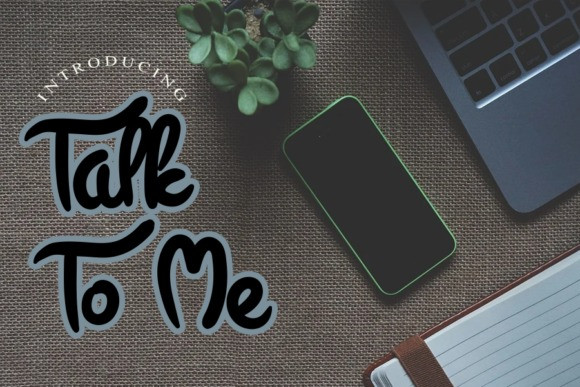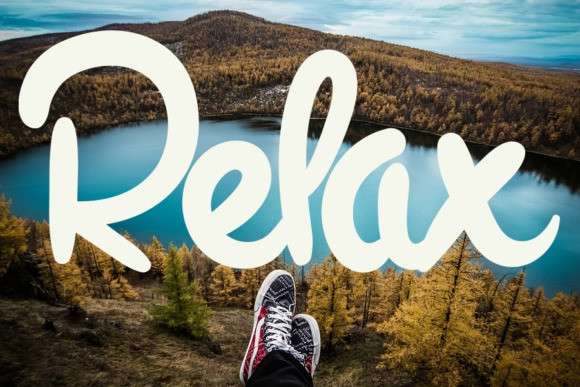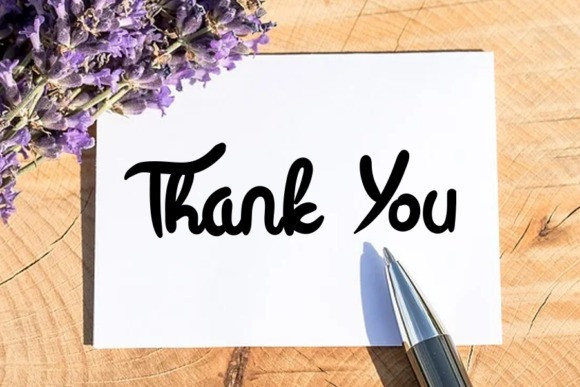
La Maison Brush Typeface
La Maison Brush Font
Introducing by Allouse.Studio
Proudly Present, La Maison Brush
La Maison Brush is a Elegant Brush Font.
La Maison Brush is perfect for product packaging, branding project, megazine, social media, wedding, or just used to express words above the background.